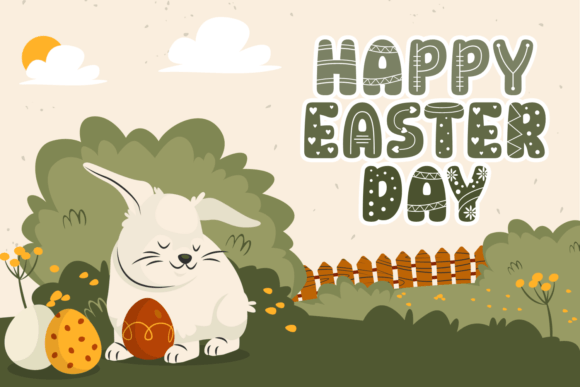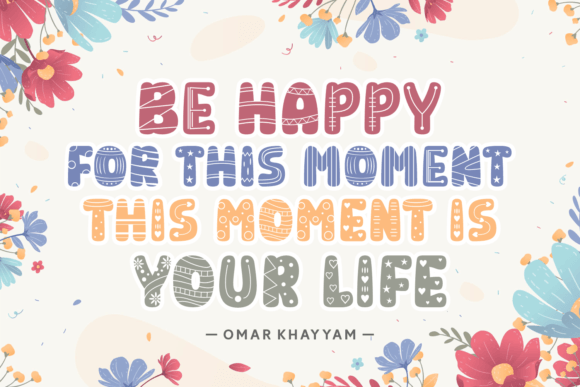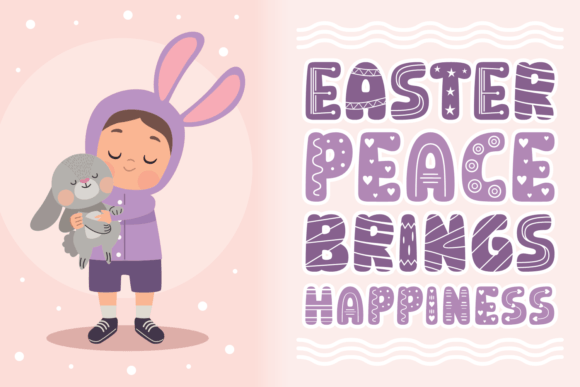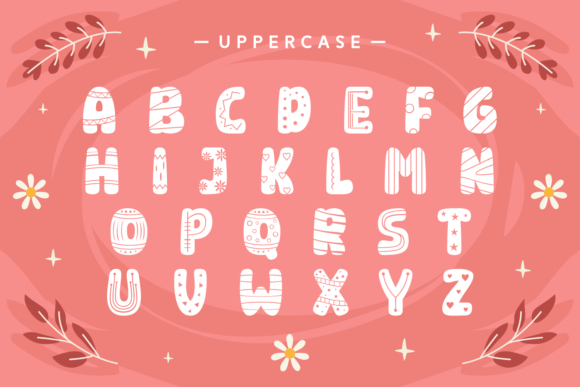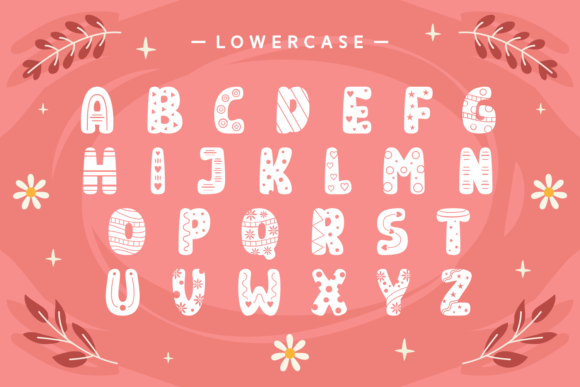
Cute Easter Fonts: Add a Touch of Whimsy to Your Designs
Easter is just around the corner, and with it comes the opportunity to create adorable designs that capture the spirit of the season. One of the most effective ways to add a touch of whimsy to your Easter-themed projects is by using a cute Easter font. In this article, we’ll introduce you to Cutes Easter, a charming decorative font that’s perfect for invitations, greeting cards, and other romantic or playful creations.
Introducing Cutes Easter Font
Cutes Easter is a delightful font that exudes sweetness and charm with its delicate lines and heart-shaped accents. Each letter is adorned with tiny details, adding a touch of elegance to any design project. This font is perfect for designers and crafters who want to create Easter-themed designs that are both playful and sophisticated.
Key Features of Cutes Easter Font
- Delicate lines and heart-shaped accents: The font features delicate lines and heart-shaped accents that give it a charming and whimsical feel.
- Tiny details: Each letter is adorned with tiny details that add a touch of elegance to any design project.
- Perfect for Easter-themed designs: The font is specifically designed for Easter-themed designs, making it perfect for invitations, greeting cards, and other seasonal creations.
- Romantic and playful: The font has a romantic and playful feel, making it perfect for designs that require a touch of whimsy.
Uses for Cutes Easter Font
Cutes Easter font is perfect for a variety of design projects, including:
- Easter invitations: Create adorable Easter invitations that set the tone for your holiday celebrations.
- Greeting cards: Design beautiful Easter greeting cards that are perfect for friends and family.
- Craft projects: Use the font to create Easter-themed craft projects, such as paper crafts, scrapbooking, and more.
- Social media graphics: Add a touch of whimsy to your Easter-themed social media graphics with Cutes Easter font.
Tips for Using Cutes Easter Font
Here are some tips for using Cutes Easter font in your design projects:
- Pair with complementary fonts: Pair Cutes Easter font with complementary fonts to create a unique and visually appealing design.
- Experiment with colors: Experiment with different colors to find the perfect combination that matches your Easter-themed design.
- Add graphics and illustrations: Add graphics and illustrations to enhance your design and make it more visually appealing.
- Keep it simple: Don’t overcomplicate your design – keep it simple and let the font be the focal point.
Cutes Easter font is a charming decorative font that’s perfect for adding a touch of whimsy to your Easter-themed designs. With its delicate lines, heart-shaped accents, and tiny details, this font is sure to delight designers and crafters alike. Whether you’re creating Easter invitations, greeting cards, or other seasonal designs, Cutes Easter font is the perfect choice. So why not give it a try and see how it can elevate your designs?